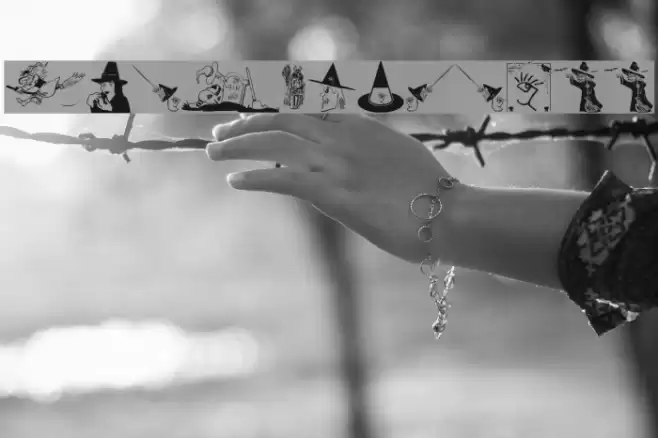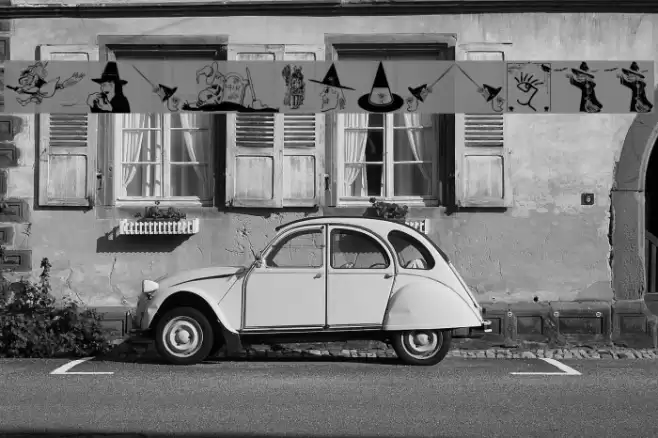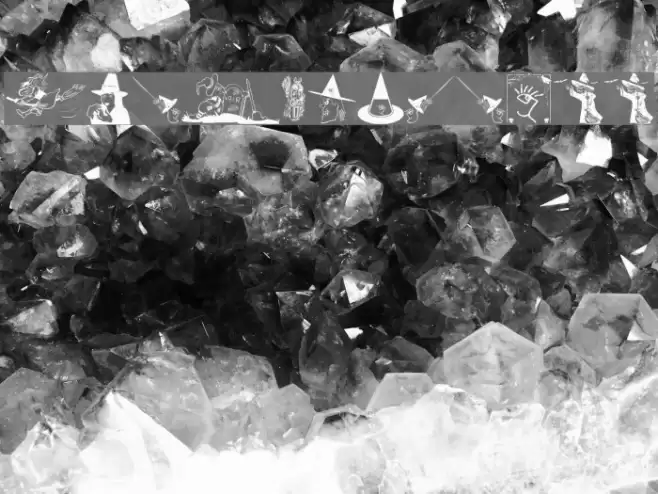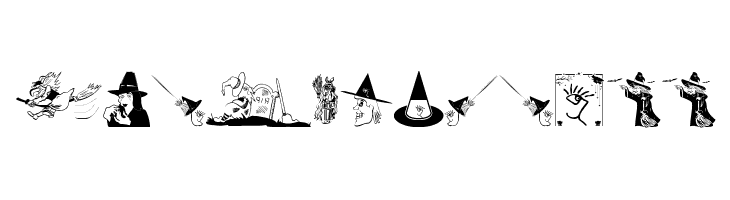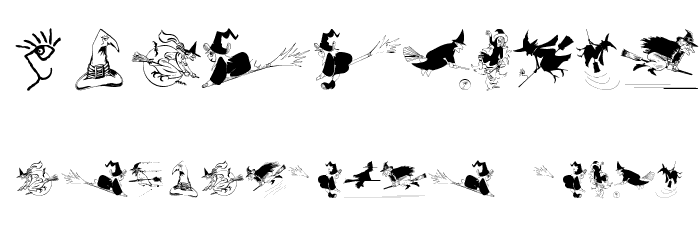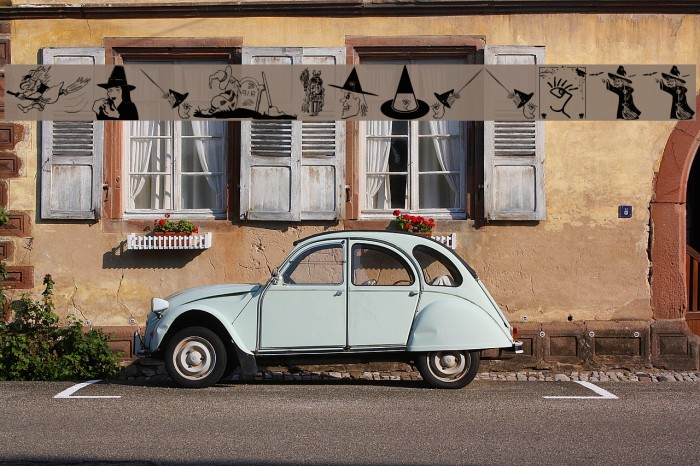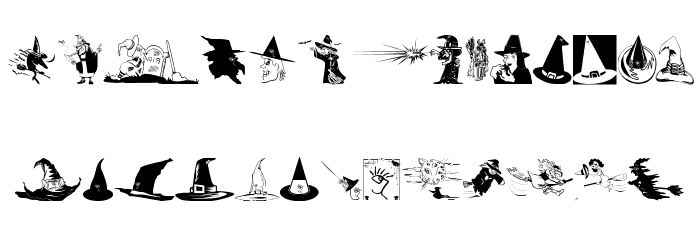
WitchesStuff Font
WitchesStuff Description
A decorative display font composed entirely of whimsical witch-themed illustrations, including witches, hats, brooms, spellbooks, and magical effects, with each character represented by a unique drawing rather than traditional letterforms.
A playful, witch-themed pictorial display font from Halloween fonts.
- Proposed Projects: Halloween invitations, party flyers, themed posters, children's books, decorative banners.
- Overall Style: Decorative, Whimsical, Thematic
- Use Case: Logos, Posters, Decorative headings, Themed graphics